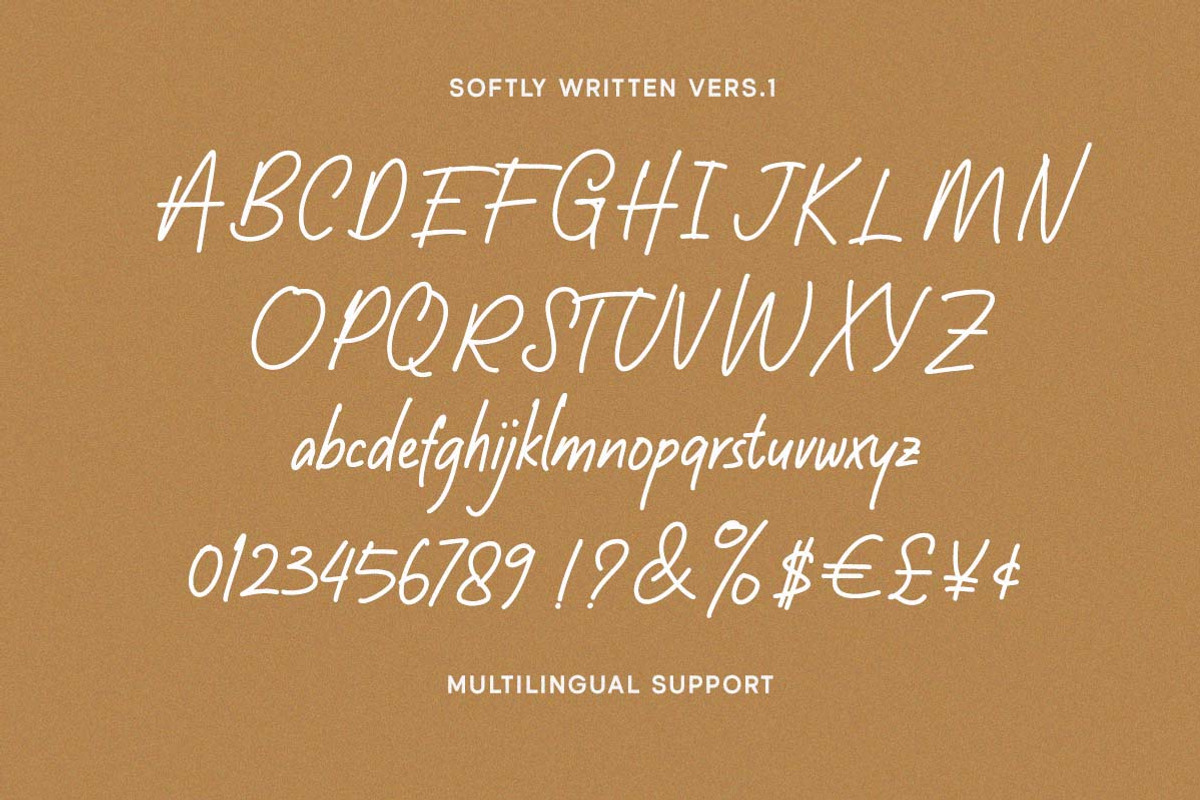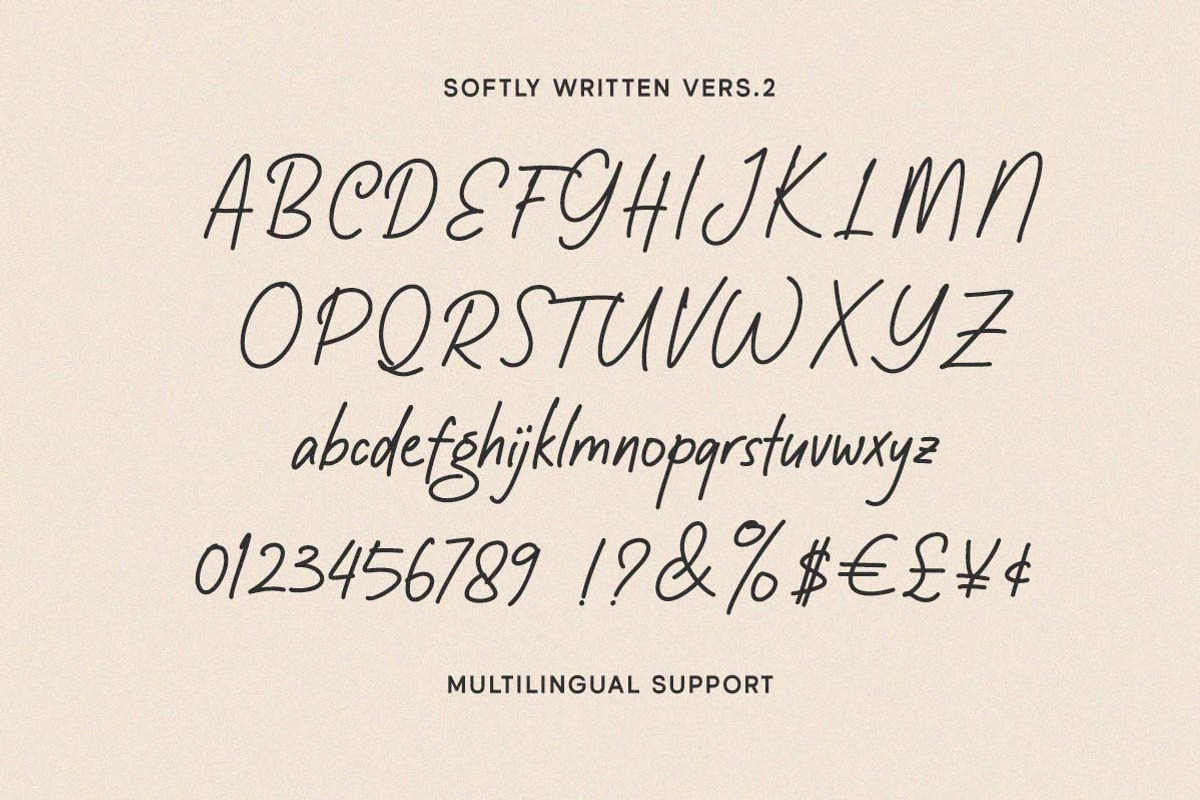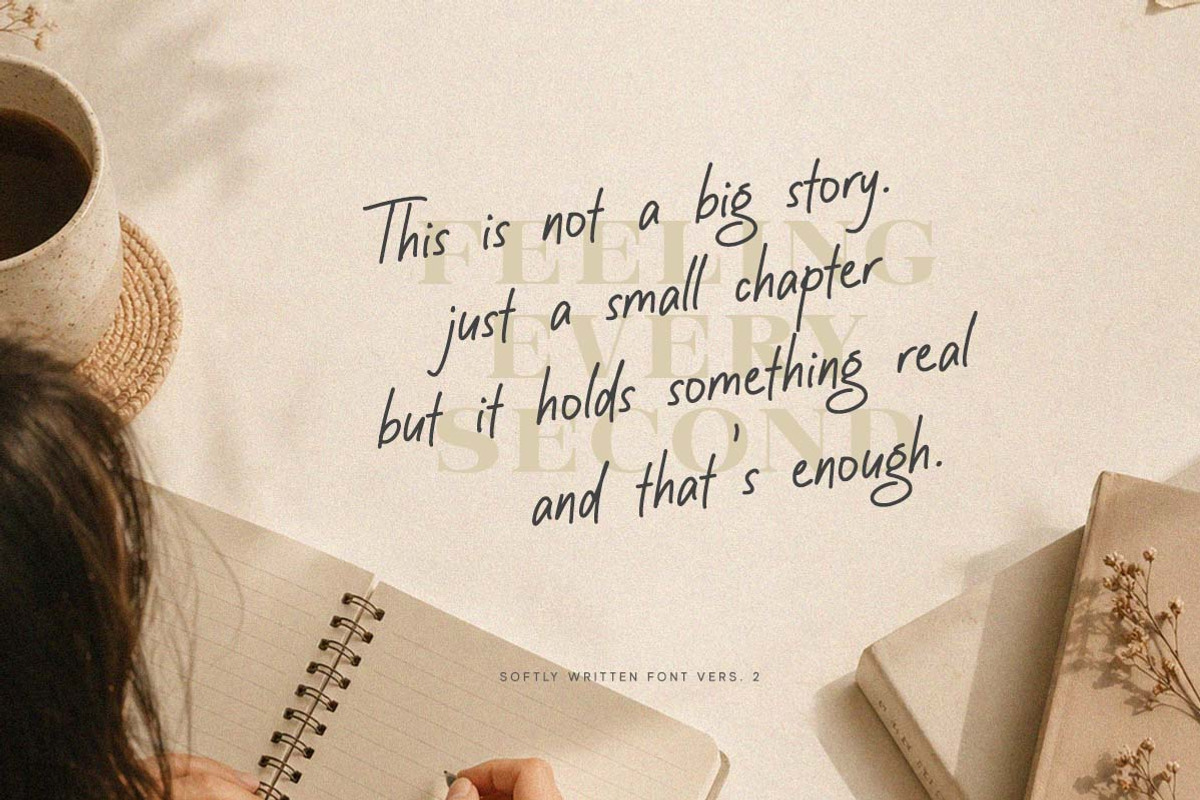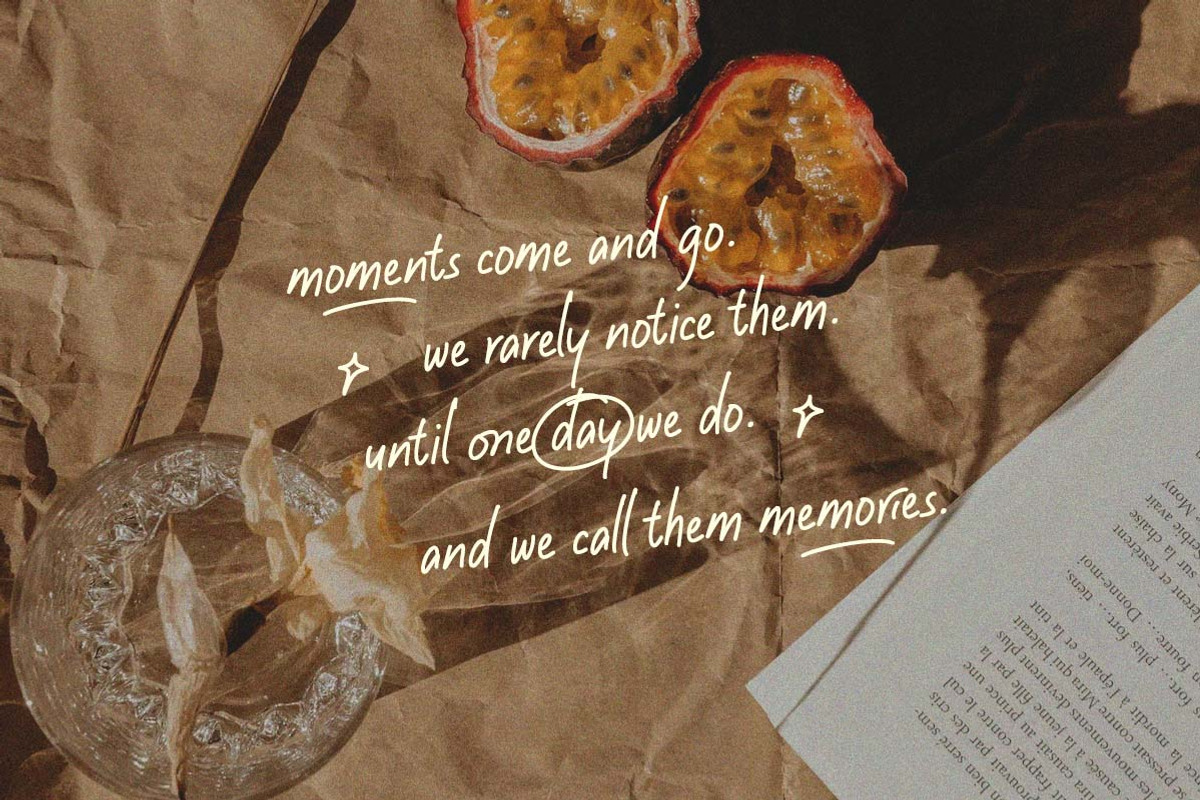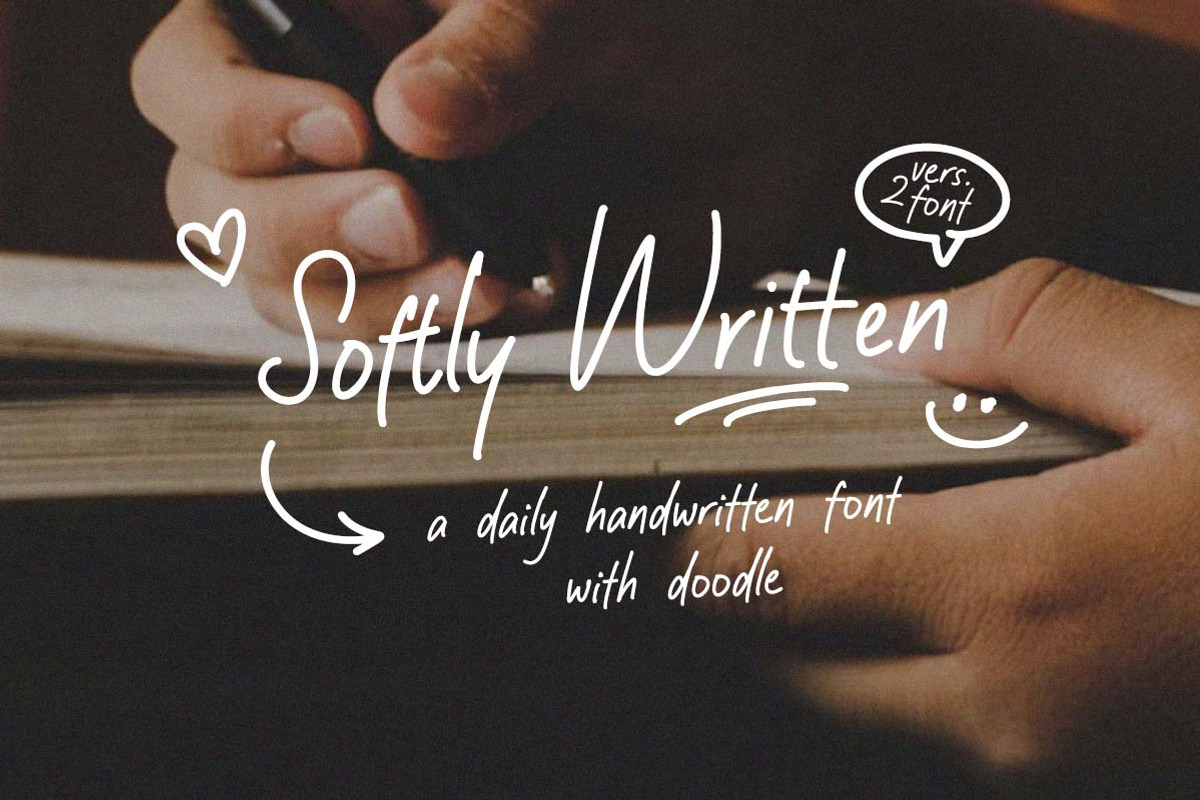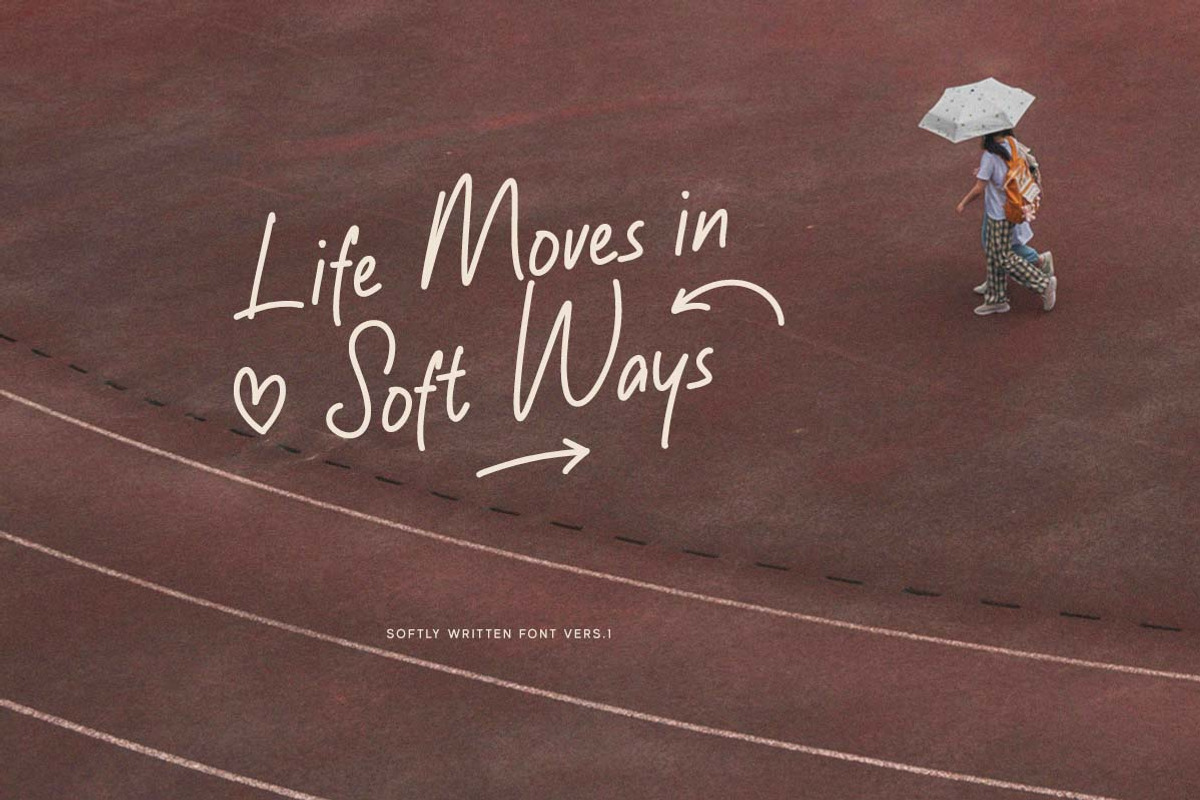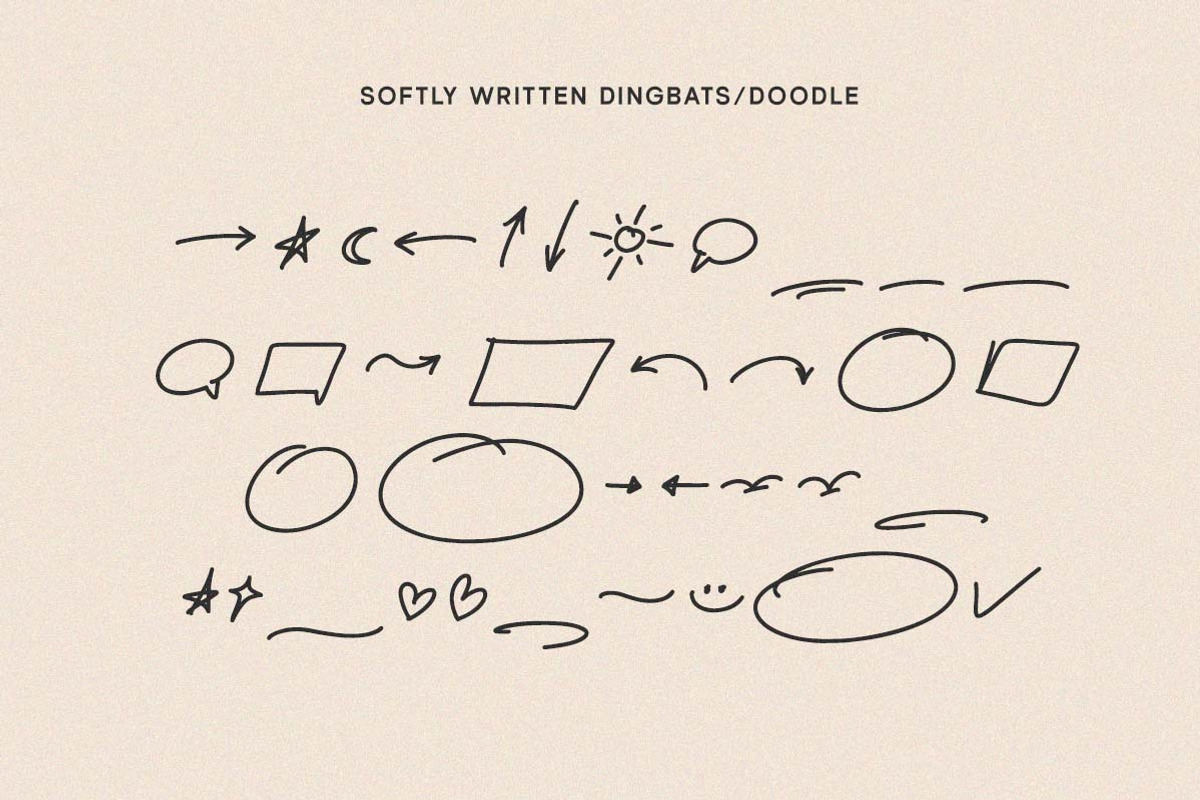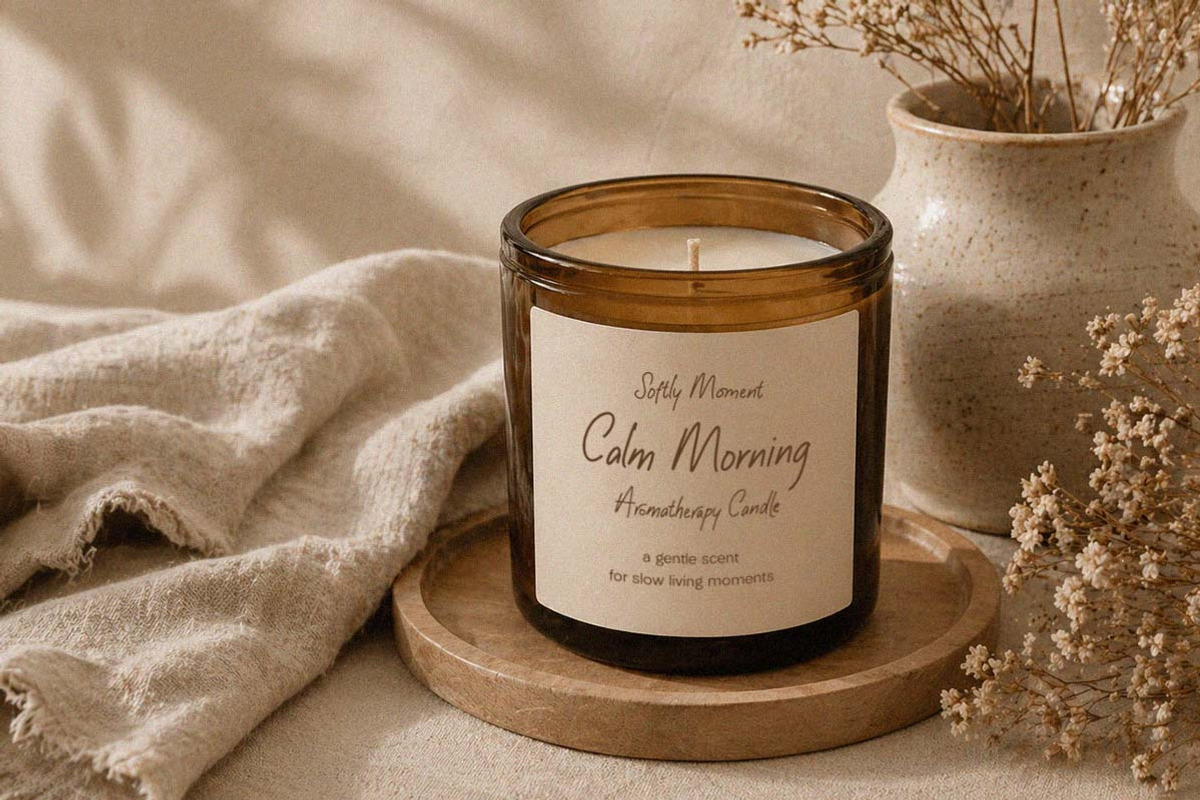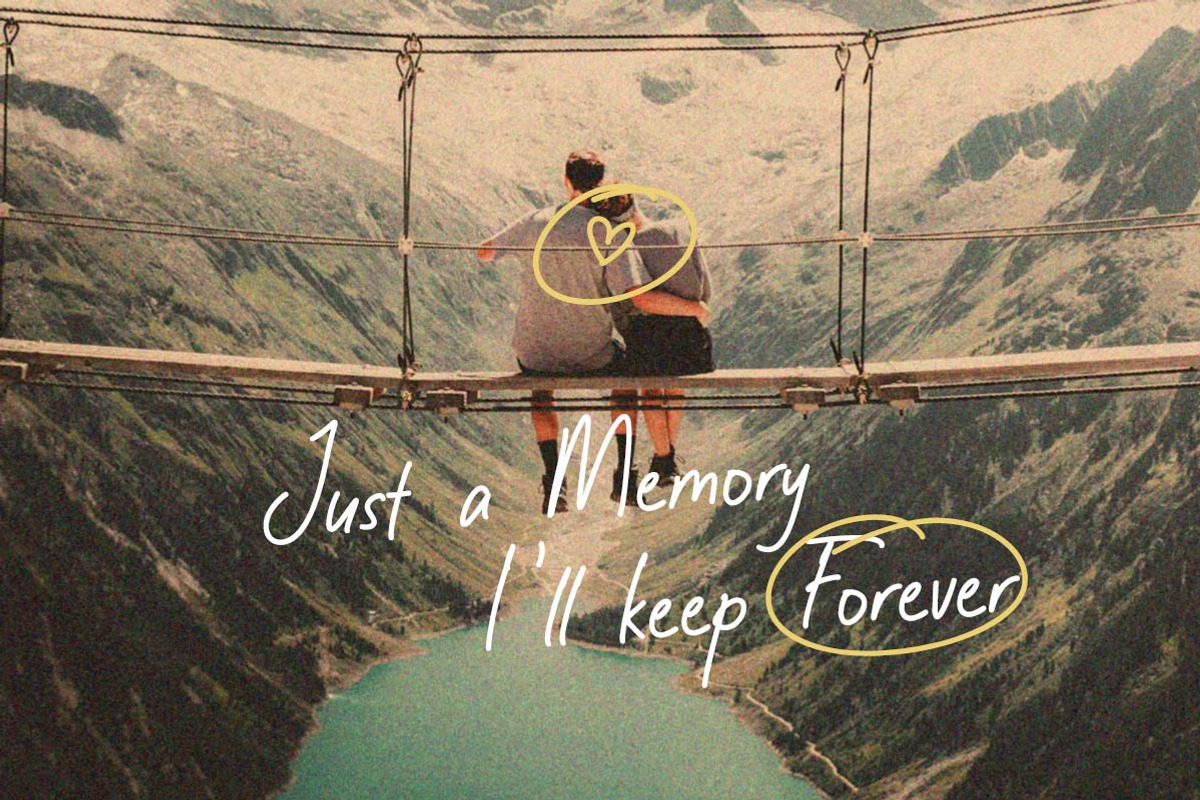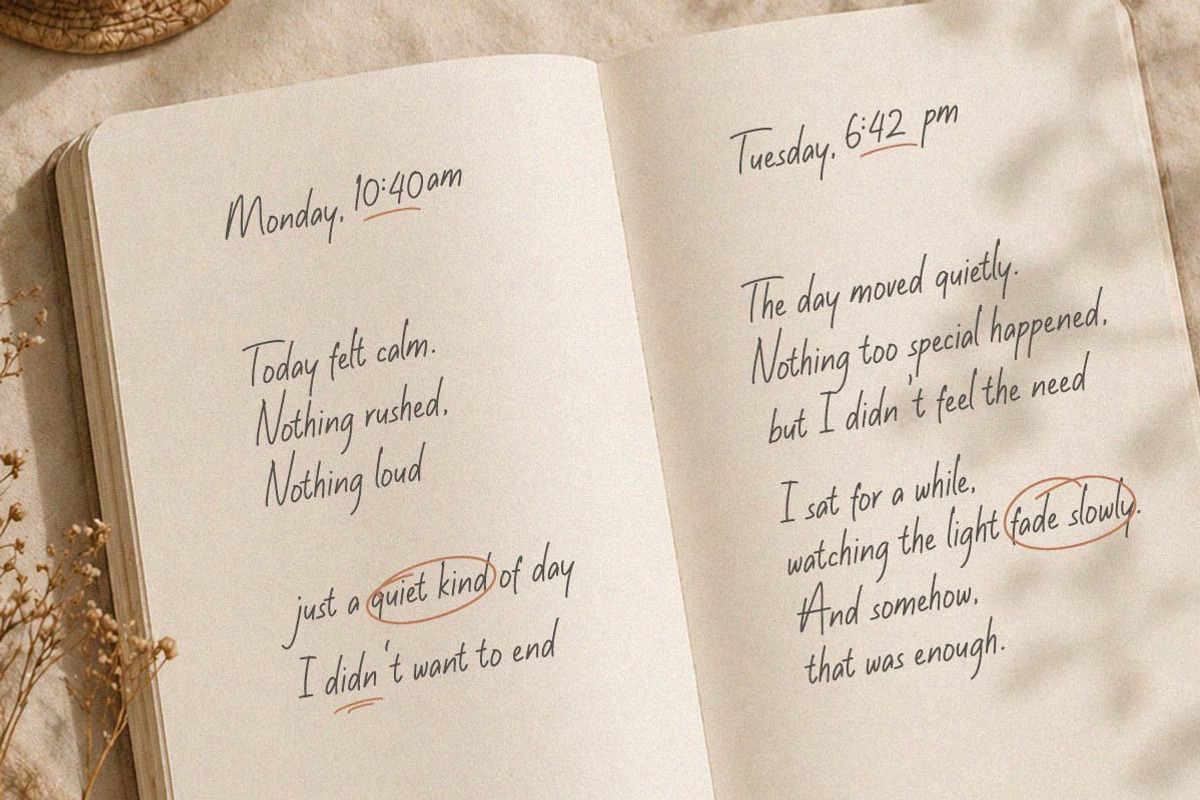
Softly Written Cozy Handwriting
Softly Written feels like little notes scribbled in a cozy journal, with smooth handwritten strokes and playful doodles that make every word look warm and friendly. The letters flow naturally with a simple everyday charm, giving this font a cute relaxed vibe that feels honest, casual, and full of tiny happy moments.
Uppercase & lowercase
Numbers and punctuation
Alternates & Ligatures